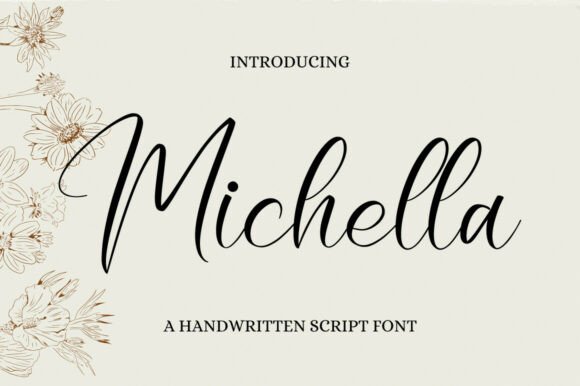
Michella Font: A Sweet and Elegant Handwritten Script Font
Michella Font is a beautiful, handwritten script font that adds a personal touch to any design project. Its smooth, flowing strokes and modern charm make it perfect for a wide range of applications, from branding and social media posts to invitations, greeting cards, and more. In this article, we’ll take a closer look at the Michella Font, its features, and how you can use it to elevate your designs.
What is Michella Font?
Michella Font is a sweet and elegant handwritten script font that is designed to bring a personal touch to your designs. Its smooth, flowing strokes and modern charm make it perfect for creating beautiful and eye-catching text. The font is highly versatile, making it suitable for both professional and playful designs.
- Smooth and flowing strokes: Michella Font features smooth and flowing strokes that give it a elegant and sophisticated look.
- Modern charm: The font has a modern charm that makes it perfect for designs that require a touch of elegance and sophistication.
- Versatile: Michella Font is highly versatile, making it suitable for both professional and playful designs.
Uses of Michella Font
Michella Font is a highly versatile font that can be used for a wide range of applications. Here are some of the ways you can use Michella Font:
- Branding: Michella Font is perfect for creating beautiful and eye-catching brand logos, taglines, and marketing materials.
- Social media posts: The font is great for creating engaging and stylish social media posts that will help you stand out from the crowd.
- Invitations: Michella Font is perfect for creating beautiful and elegant invitations for weddings, parties, and other special events.
- Greeting cards: The font is great for creating stylish and elegant greeting cards for special occasions.
Benefits of Michella Font
Michella Font offers a range of benefits that make it a great choice for designers and businesses. Here are some of the benefits of using Michella Font:
- Unique and eye-catching: Michella Font is a unique and eye-catching font that will help you stand out from the crowd.
- Elegant and sophisticated: The font has an elegant and sophisticated look that makes it perfect for designs that require a touch of luxury.
- Highly versatile: Michella Font is highly versatile, making it suitable for both professional and playful designs.
- Easy to read: The font is easy to read, making it perfect for body text and other applications where readability is important.
Tips for Using Michella Font
Here are some tips for using Michella Font effectively in your designs:
- Use it sparingly: Michella Font is a beautiful font, but it can be overwhelming if used too much. Use it sparingly to create a focal point in your design.
- Pair it with a sans-serif font: Pairing Michella Font with a sans-serif font can create a nice contrast and make your design more visually appealing.
- Experiment with different colors: Michella Font looks great in a range of colors, so don’t be afraid to experiment and find the perfect color for your design.
- Use it for headlines and titles: Michella Font is perfect for headlines and titles, where its elegant and sophisticated look can really shine.
Michella Font is a beautiful and elegant handwritten script font that is perfect for adding a personal touch to your designs. Its smooth, flowing strokes and modern charm make it highly versatile and suitable for a wide range of applications. Whether you’re a designer, business owner, or simply a DIY enthusiast, Michella Font is a great choice for any project.